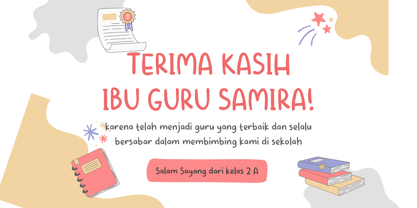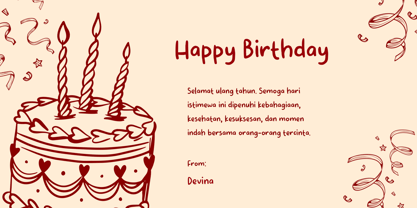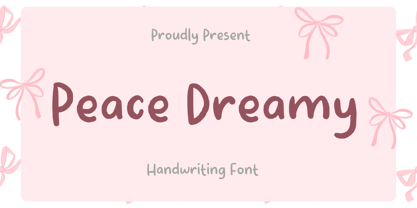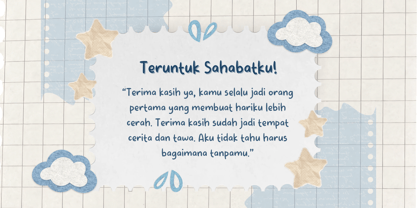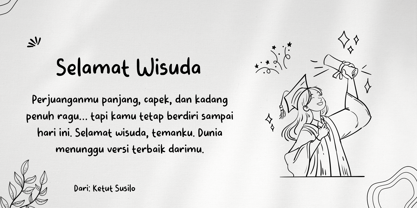
Peace Dreamy
by Aisyah
The Peace Dreamy Font Family was designed by Nur Aiysah Amalia and published by Aisyah. Peace Dreamy contains 1 styles. More about this family
Peace Dreamy is a cute, lovely, and dreamy handwritten font with a soft, playful, and charming personality. Designed to be both beautiful and easy to read, it works wonderfully for long texts as well as creative displays. Perfect for invitations, greeting cards, crafts, branding, logos, packaging, stationery, social media, small businesses, and creative projects. Peace Dreamy adds a sweet, friendly, and personal touch to every design.
Designers: Nur Aiysah Amalia
Foundry: Aisyah